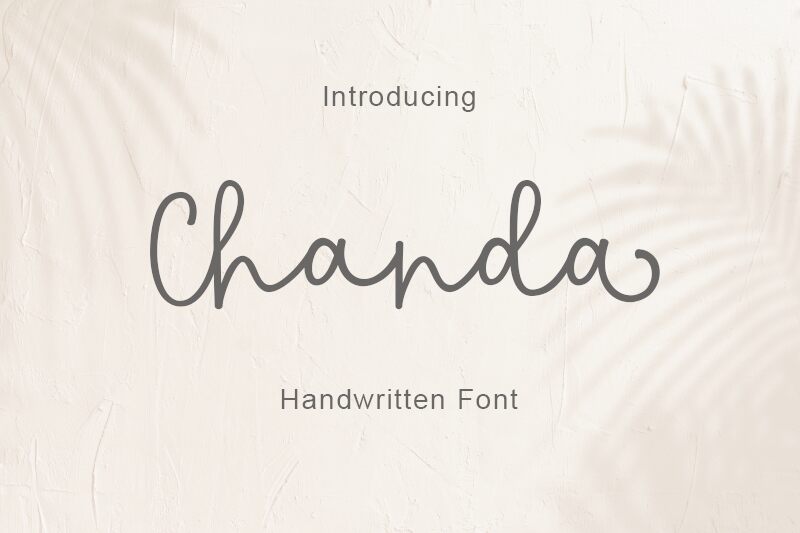
Chanda font by Amarlettering is a free handwritten font exuding casual sophistication and a natural feel. Elegant, smooth, and flowing, this contemporary typeface offers a relaxed and approachable look that is both modern and stylish. Its clean and graceful appearance makes it adaptable for a wide range of design projects seeking a personal touch.
Perfectly suited for branding, invitations, social media posts, magazines, quotes, posters, and website headers. Whether used in headings or body text, its unique aesthetic will enhance both digital and print projects with a professional edge.